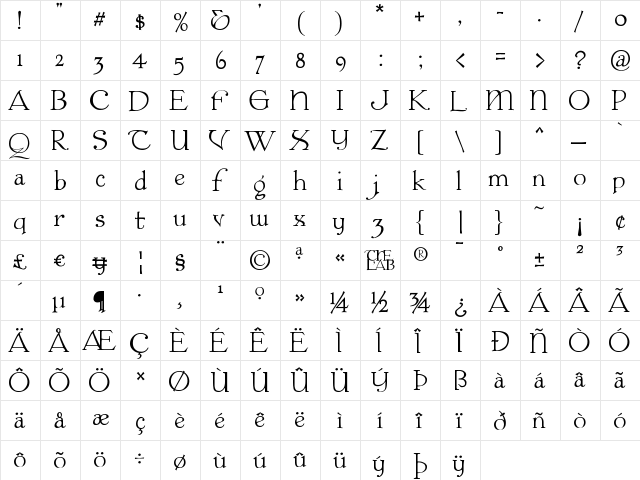
Colwell Regular
Design Context for Colwell Typeface
Colwell takes a measured approach to typography — its balanced proportions and neutral character make it a reliable workhorse for both digital and print work.